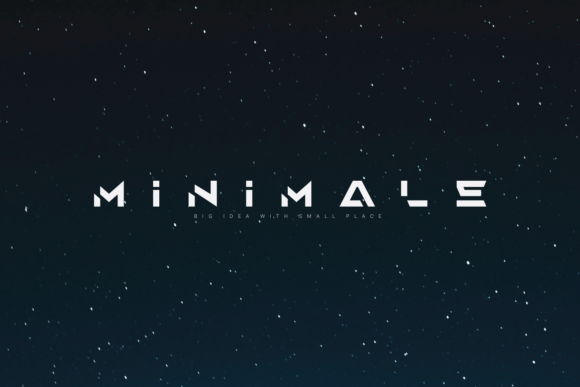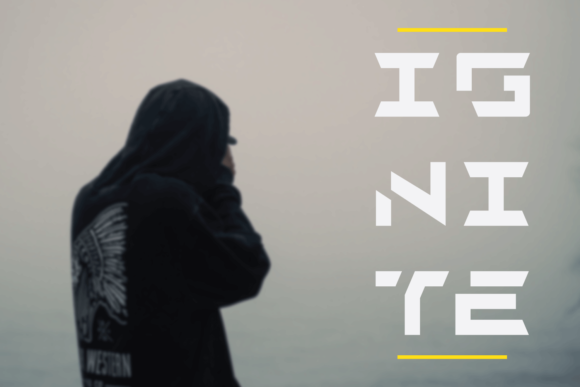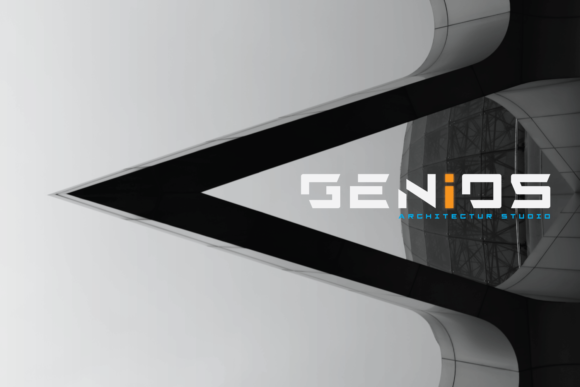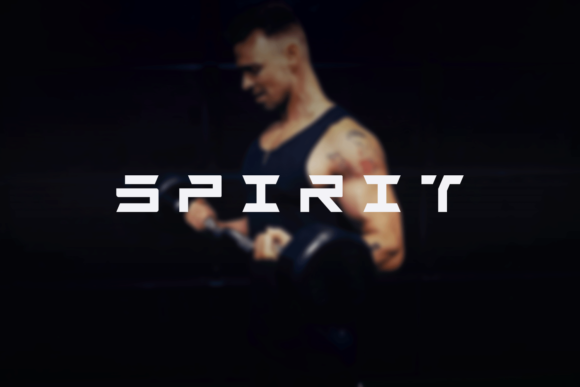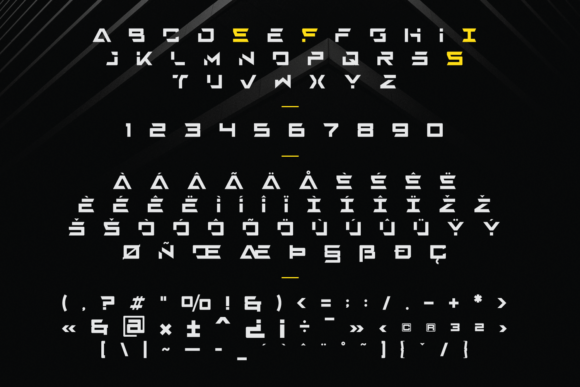
Introduction to Mexon Font
Mexon is a bold, luxurious and futuristic display font.
This font is ideal for writing web designs, business cards, or pretty much anything else that requires a cool, assertive touch .
Key Features of Mexon Font